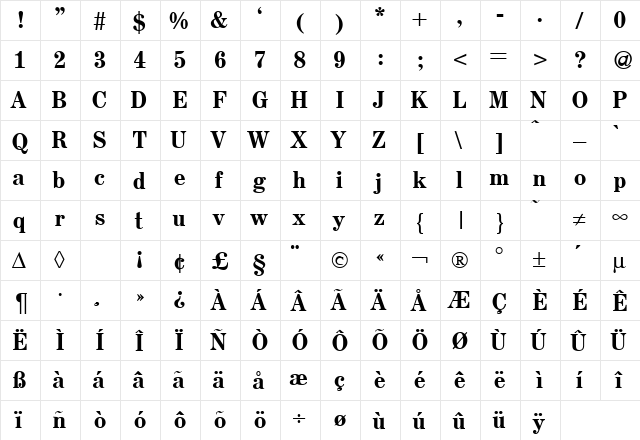
AureliusSerifMedium Regular
Design Context for AureliusSerifMedium Typeface
AureliusSerifMedium brings classic typographic sensibility to the table — its serifs and measured letterforms reflect centuries of print heritage.
Pro Tip: Set AureliusSerifMedium with slightly loose tracking in headlines to let each letterform's detail read clearly at display sizes.